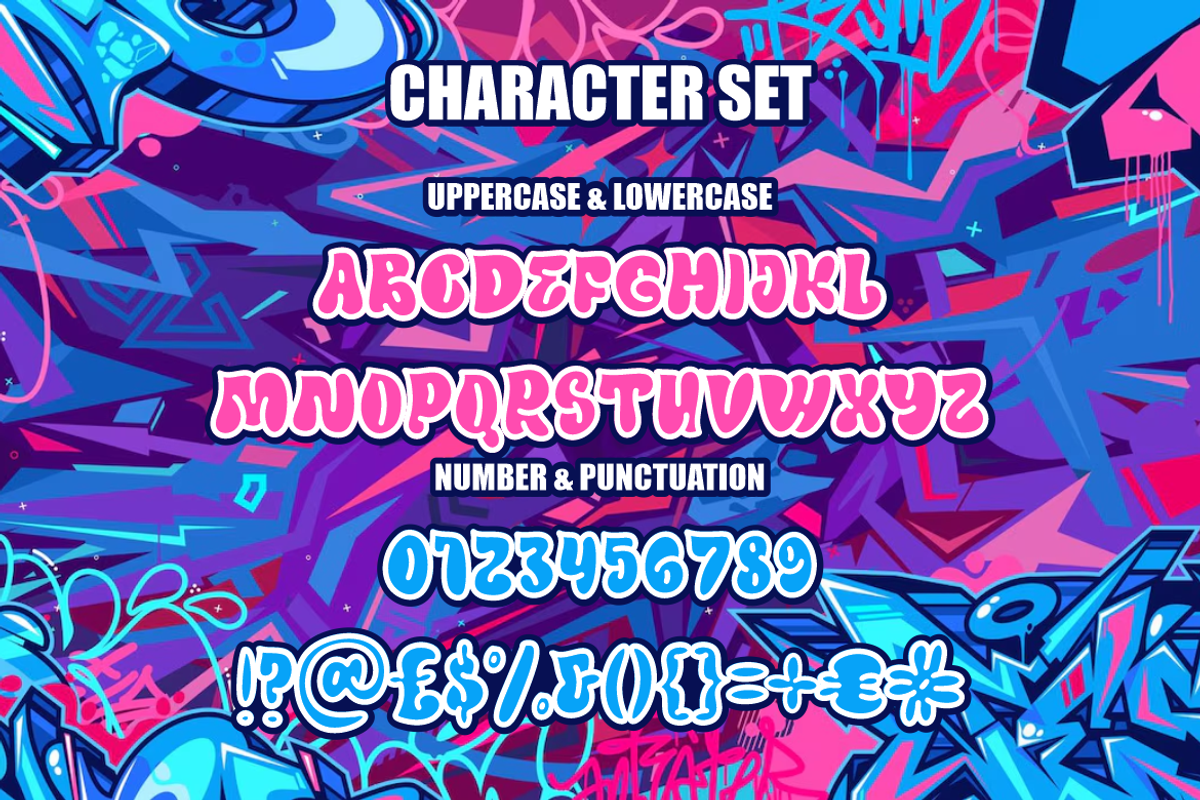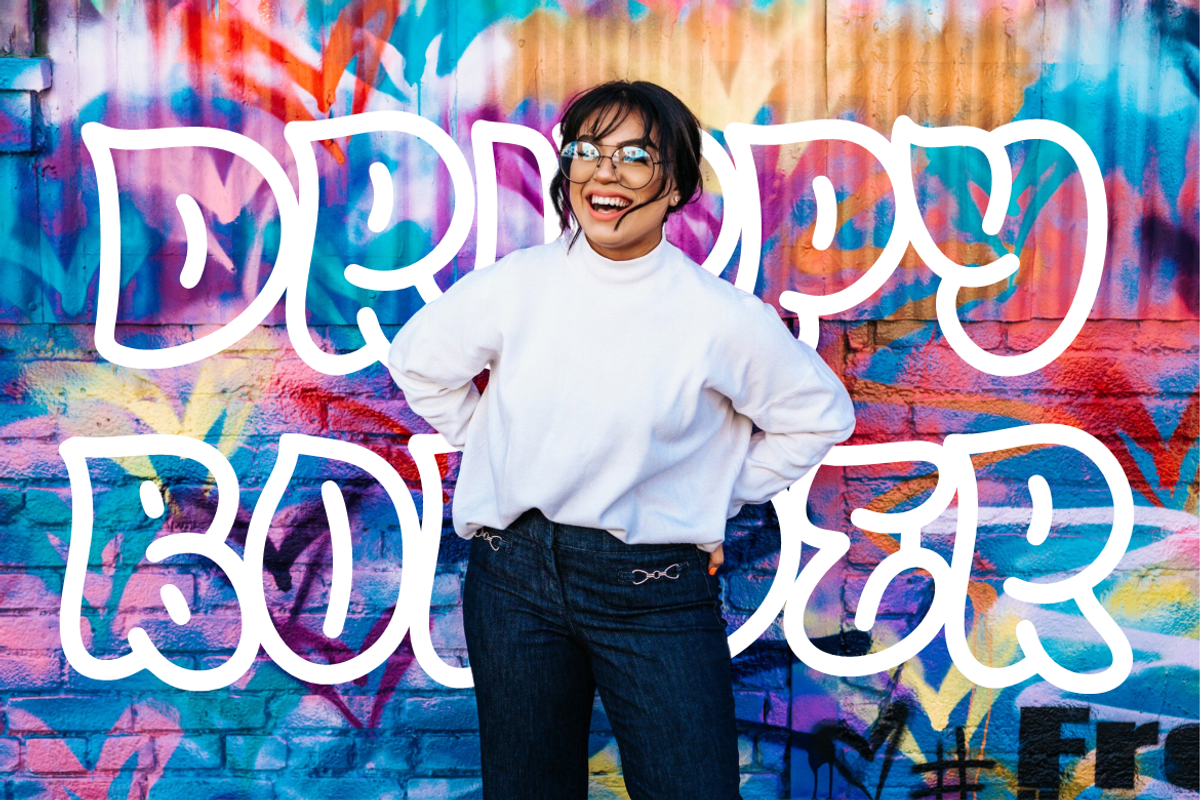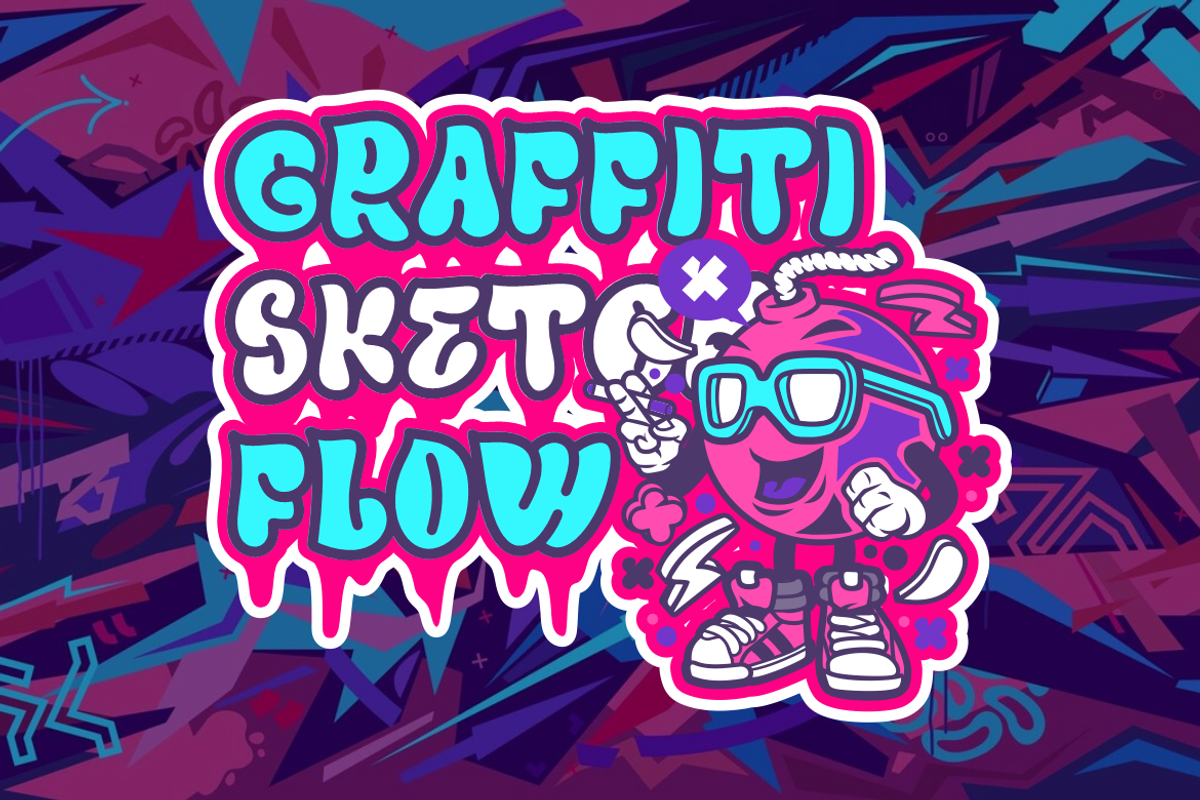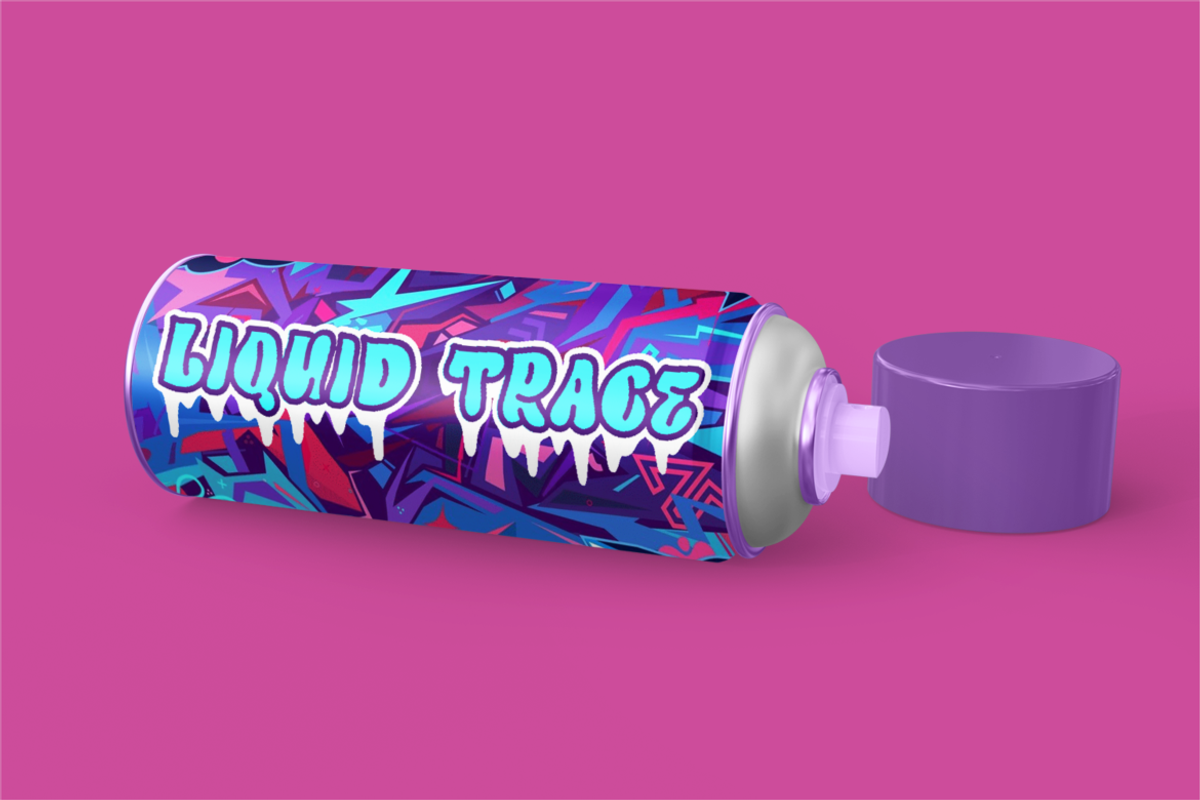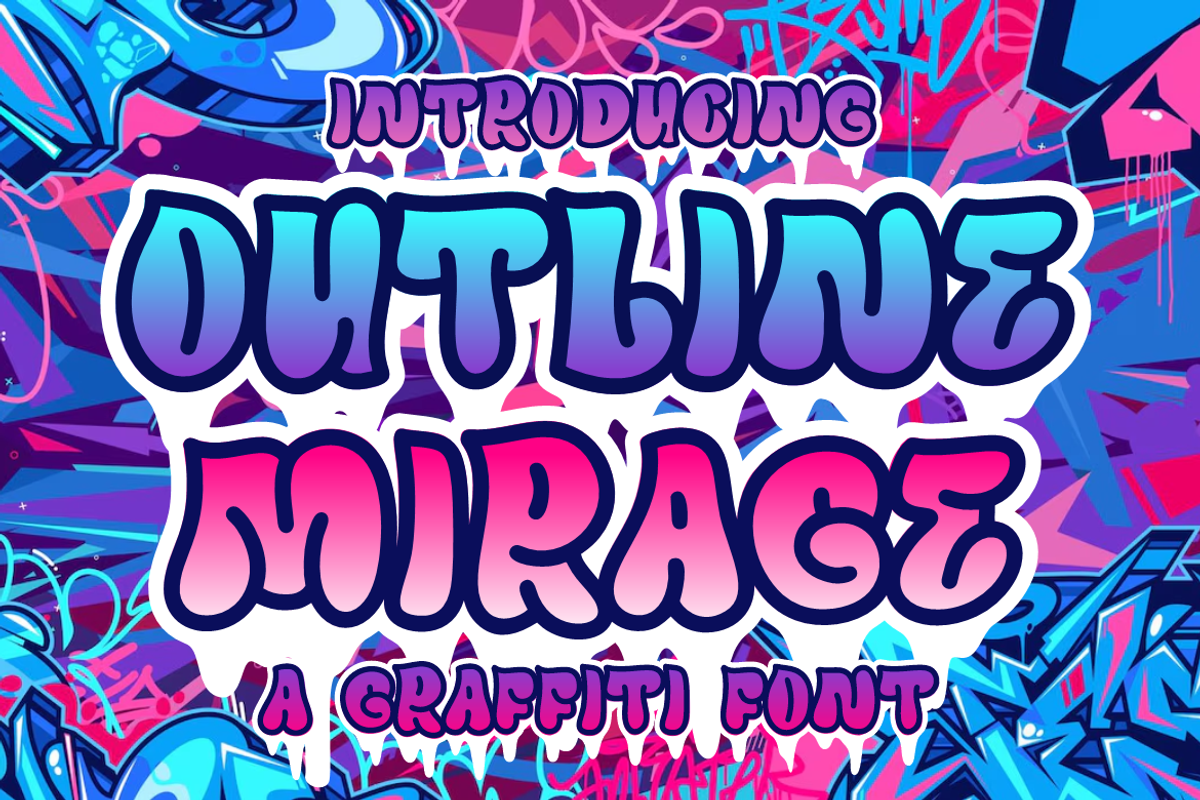
Outline Mirage - Graffiti Font
Step into a world of chromatic rebellion with Outline Mirage, a graffiti display font that captures the visual essence of street culture and urban grit. This font blends bulbous, rounded letterforms with a sharp gradient stroke style and melting drip effects that scream raw attitude. Each character is carefully outlined with a bold stroke, creating high-impact readability while maintaining the aesthetic of hand-thrown graffiti. From smooth arcs to exaggerated stems, the letters feel like they’ve been pulled straight from a concrete wall in an underground art alley—stylized with thick shadows, popping neon gradients, and layers of linework that simulate authentic graffiti textures. The dual-tone color scheme mimics spray can overlays, enhancing its vibrant and rebellious vibe.
Perfect for urban fashion branding, music festival posters, streetwear labels, album art, merchandise, and youth-focused social campaigns, Outline Mirage is engineered to make statements loud and proud. The font includes full uppercase and lowercase alphabets, numbers, punctuation, and multilingual characters—crafted to maintain a cohesive graffiti feel across various layouts. Whether you're designing vinyl stickers, zines, event flyers, or digital thumbnails, this font delivers punch, flair, and authenticity. Its bold, drippy aesthetic makes it an essential tool for creatives aiming to channel urban expressionism into a visual identity.